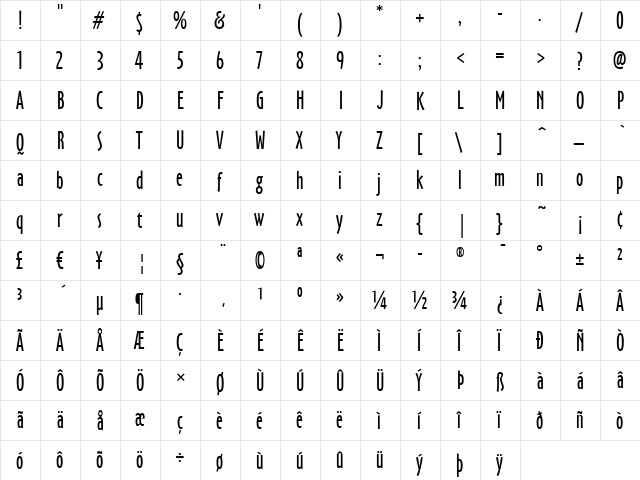
MigrateITC Medium
Design Context for MigrateITC Typeface
MigrateITC is a composed and adaptable typeface that performs quietly and consistently across a wide range of design contexts.
Pro Tip: Use MigrateITC in both headline and body roles to test its range before committing to a single application.